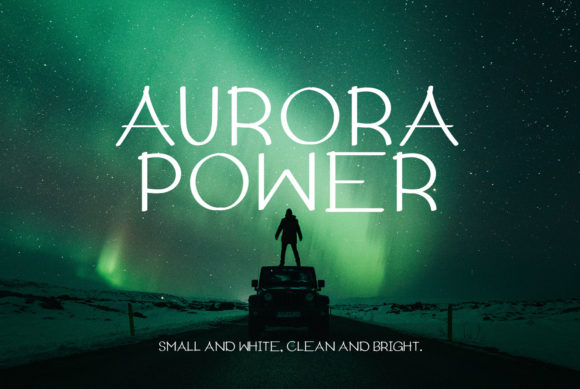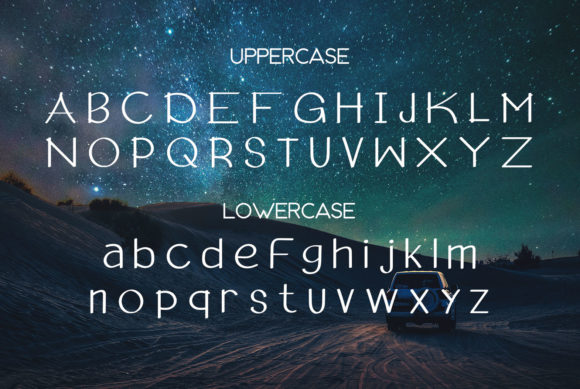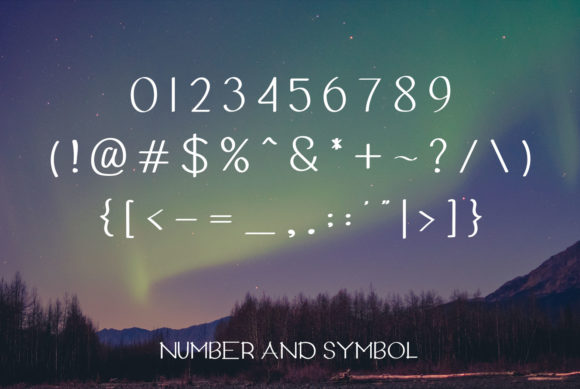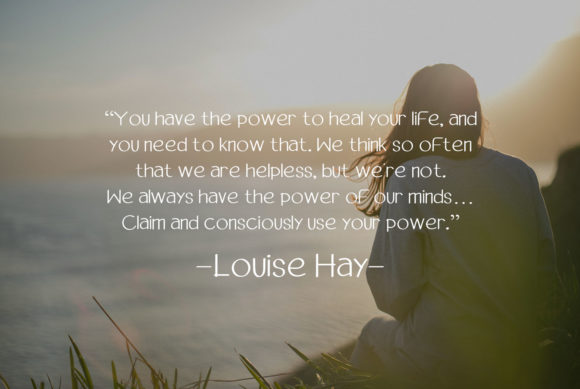
Aurista Font: The Perfect Blend of Casual and Tasteful for Your Design Projects
In the world of typography, fonts play a crucial role in conveying the tone and personality of a brand or project. For designers and crafters looking for a font that strikes the perfect balance between casual and tasteful, Aurista Font is an excellent choice. This display font is clean, a little bit quirky, and versatile, making it an ideal fit for various design projects, including logos, branding, social media, and DIY crafts.
What Makes Aurista Font Stand Out?
Aurista Font boasts a unique blend of modern cleanliness and playful quirks. Its casual nature makes it approachable and friendly, while its tasteful design ensures it remains sophisticated and elegant. This font is perfect for designers who want to add a touch of personality to their work without compromising on professionalism.
Key Features of Aurista Font
- Clean Design: Aurista Font features a clean and crisp design, making it easy to read and visually appealing.
- Quirky Touch: The font’s quirky elements add a playful touch, making it perfect for projects that require a bit of personality.
- Versatility: Aurista Font is highly versatile and can be used for a wide range of design projects, from logos and branding to social media graphics and DIY crafts.
- Display Font: As a display font, Aurista is designed to make a statement and grab attention, making it perfect for headlines, titles, and promotional materials.
When it comes to creating a logo or branding materials, the font choice is crucial. Aurista Font is an excellent choice for logos and branding due to its unique blend of casual and tasteful design. Its clean and modern look ensures that your brand stands out, while its quirky elements add a touch of personality and whimsy.
Ideal for Social Media Graphics
In today’s digital age, social media graphics are an essential part of any design project. Aurista Font is perfect for social media graphics due to its bold and attention-grabbing design. Whether you’re creating graphics for Instagram, Facebook, or Twitter, Aurista Font is sure to make your content stand out.
Great for DIY Crafts and Projects
For crafters and DIY enthusiasts, Aurista Font is a great choice for a wide range of projects, from handmade cards and invitations to crafty DIY decor. The font’s playful and quirky design adds a personal touch to any project, making it perfect for those who love to add a bit of personality to their crafts.
Tips for Using Aurista Font
- Experiment with Sizes: Aurista Font looks great in various sizes, from large display fonts to smaller body text.
- Play with Colors: The font’s clean design makes it versatile and easy to pair with different colors and textures.
- Add a Personal Touch: Don’t be afraid to add your personal touch to your design projects with Aurista Font. Its quirky elements make it perfect for adding a bit of personality to your work.
Aurista Font is a versatile and stylish display font that’s perfect for designers and crafters looking for a casual and tasteful font for their design projects. Its unique blend of clean and quirky design elements makes it an excellent choice for logos, branding, social media graphics, and DIY crafts. With its bold and attention-grabbing design, Aurista Font is sure to add a touch of personality and whimsy to any project.